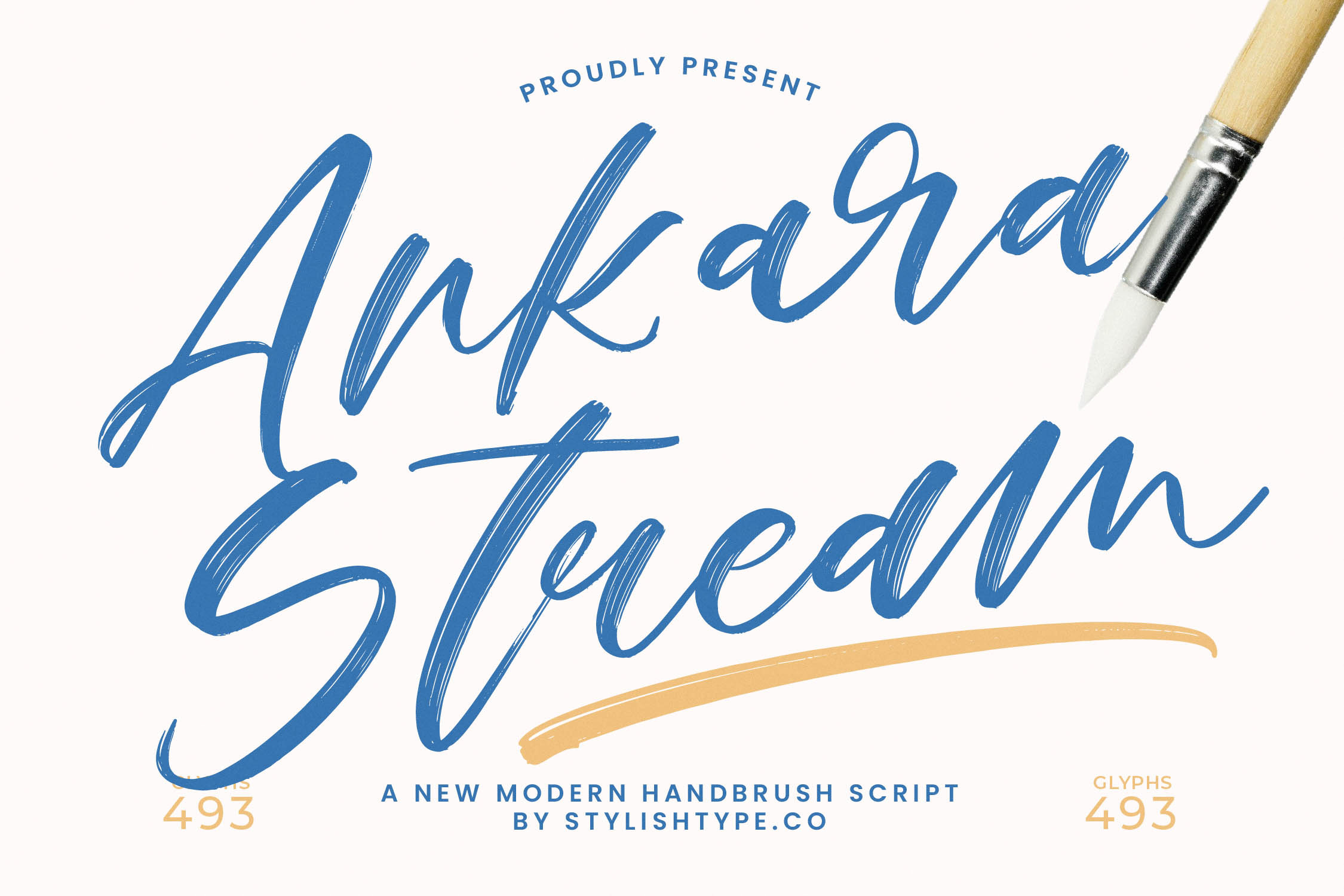
Ankara Stream Modern Handbrush Font
Ankara Stream - Modern Handbrush Script , from Stylishtype.Co , Suitable for any projects such as: logos, branding projects, homeware designs, product packaging, mugs, quotes, posters, shopping bags, t-shirts, book covers, name card, invitation cards, greeting cards, label, photography, watermark, special events, and all your other luxury and beautiful projects that need a Luxury Script taste.
- 130 Ligature 31 Alternates & Swashes